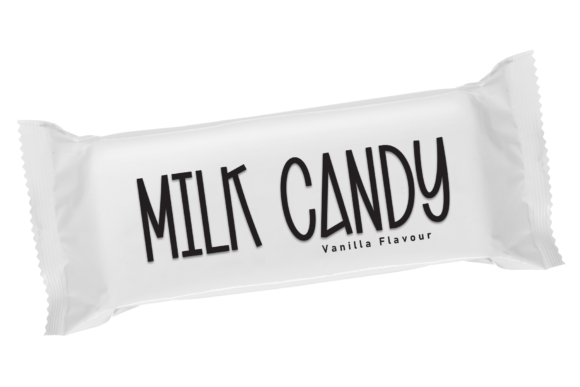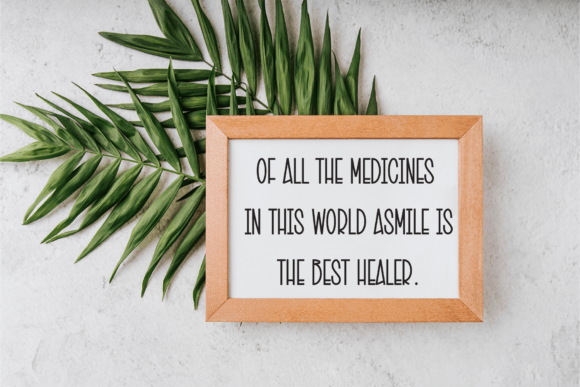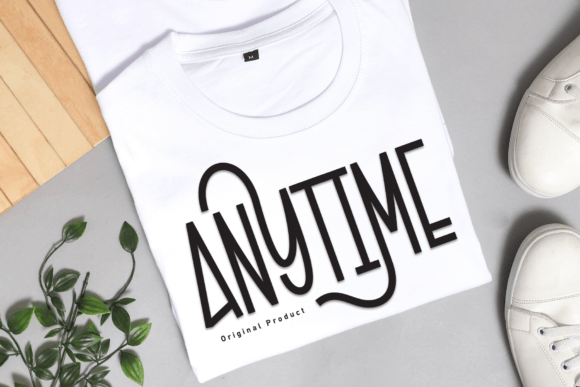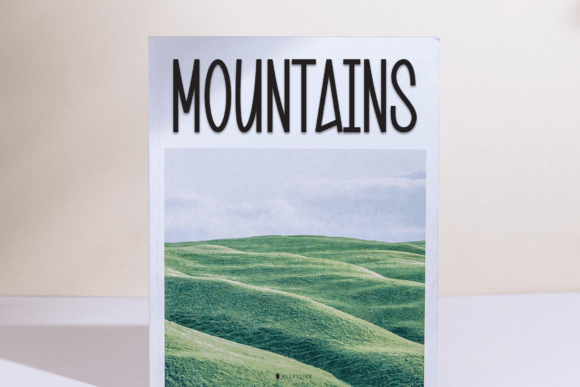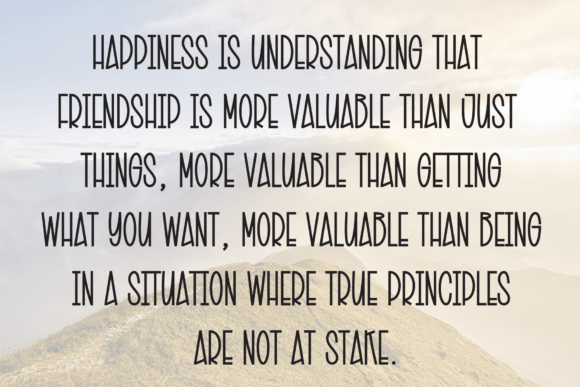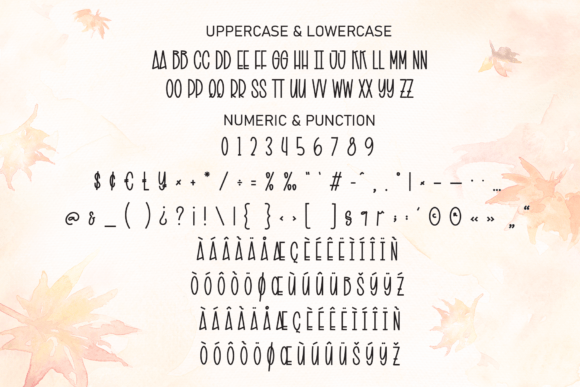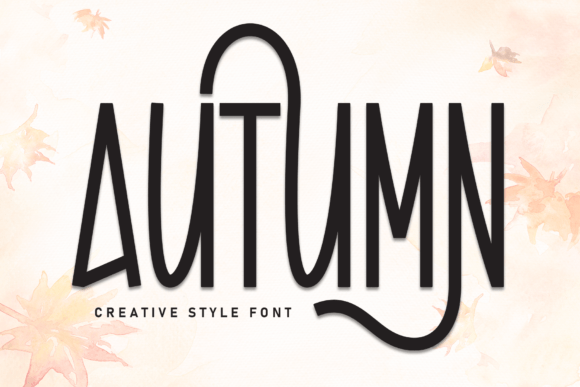
Embracing the Cozy Vibes of Autumn Font
I’ll never forget the design project that led me to discover the charming Autumn Font. I was working on a personal invitation for a friend’s harvest-themed party, and I was struggling to find the perfect font that captured the warm, cozy essence of the season. That’s when I stumbled upon Autumn Font, and it instantly became the perfect fit. Its casual, handwritten strokes and relaxed vibe perfectly complemented my design, and I knew I had to share it with fellow creatives.
An Honest Review of Autumn Font
So, what makes Autumn Font so special? Let’s dive into the details!
- ✨ Natural, flowing strokes that give it a friendly, approachable feel
- ✅ Effortless charm that adds warmth and authenticity to any design
- 🌟 Perfect for personal projects, social media, and invitations
- 👍 Easy to read and understand, even at smaller font sizes
While Autumn Font is a gem, it’s not without its quirks. Here are a few things to keep in mind:
- 🤔 Limited formal or bold uses – it’s best suited for casual, friendly designs
- ⚠️ Some letters may appear a bit cramped at smaller font sizes, so adjust accordingly
The Story Behind Autumn Font
While the origins of Autumn Font might be shrouded in mystery, it’s easy to imagine a designer inspired by the cozy warmth of a crackling fire on a chilly autumn evening. Perhaps they wanted to capture the essence of handwritten notes and letters, infusing their design with a sense of comfort and approachability.
Q: What type of projects is Autumn Font best suited for?
A: Autumn Font is perfect for personal projects, social media, invitations, and any design that requires a friendly, casual touch.